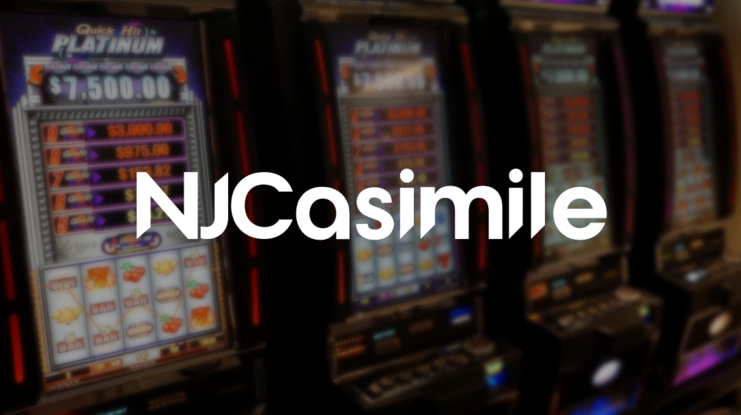
NJCasimile Font
NJCasimile Font is a unique and elegant typeface that can add a touch of sophistication to any project because NJCasimile team tried very hard to make a font that fits everywhere. Try this font in your project to highlight some phrases!